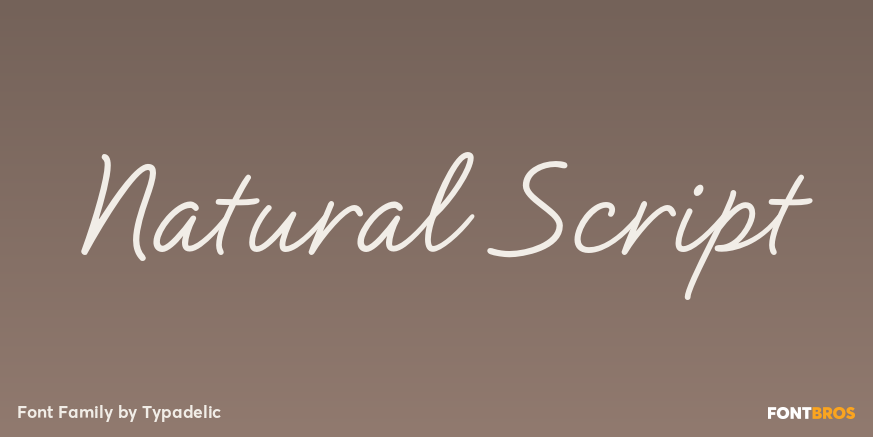
Natural Script is a refined and light script face. Some of the letters join, some don\’t. This handwriting font looks great in small blocks of text or for titling.